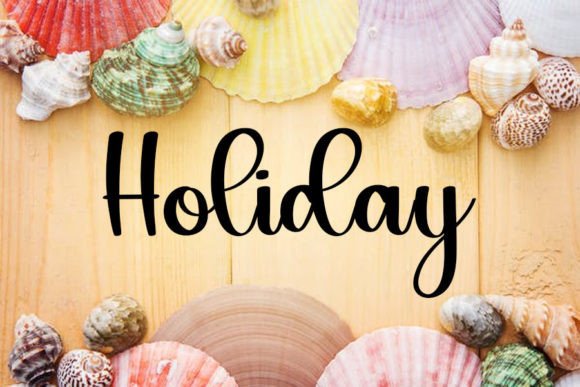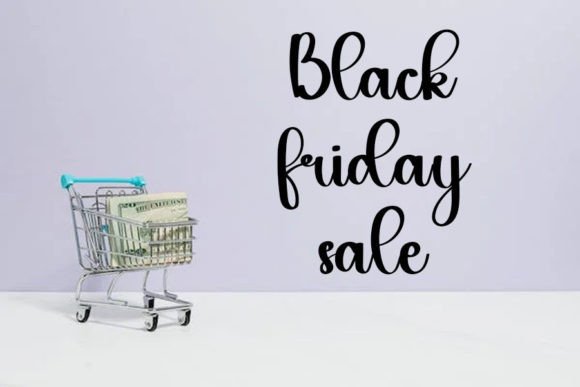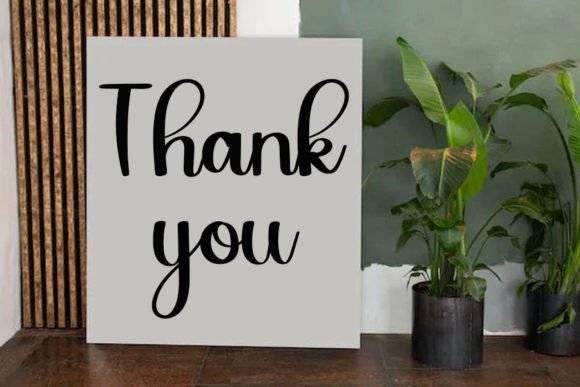
Introducing Everyone Font: The Magical Handwritten Font for Creative Projects
Are you tired of using the same old fonts for your logos, branding, and social media posts? Do you want to add a touch of elegance and quirkiness to your designs? Look no further than Everyone Font, a beautifully crafted handwritten font that’s perfect for creatives and DIY enthusiasts.
What is Everyone Font?
Everyone Font is a carefully curated handwritten font that’s designed to bring a touch of magic to your projects. With its clean lines and elegant feel, this font is ideal for a wide range of applications, from logos and branding to social media posts and crafty DIY projects.
Whether you’re a designer, crafter, or simply someone who loves to get creative, Everyone Font is the perfect choice for anyone looking to add a personal touch to their work. The font’s unique blend of sophistication and playfulness makes it versatile enough to be used in a variety of contexts, from formal to informal.
Key Features of Everyone Font
- Handwritten with love: Everyone Font is carefully crafted by hand, giving it a personal and unique feel that’s hard to replicate with generic fonts.
- Elegant and clean: The font’s clean lines and elegant feel make it perfect for projects that require a touch of sophistication.
- Quirky and playful: Despite its elegance, Everyone Font has a playful side that’s perfect for adding a bit of whimsy to your designs.
- Versatile: This font is suitable for a wide range of projects, from logos and branding to social media posts and crafty DIY projects.
How to Use Everyone Font
Using Everyone Font is easy! Whether you’re a seasoned designer or a DIY novice, you can easily incorporate this beautiful font into your projects. Here are a few ideas to get you started:
- Logos and branding: Use Everyone Font to create a unique and memorable logo for your business or brand.
- Social media posts: Add a touch of personality to your social media posts with Everyone Font.
- Crafty DIY projects: Use Everyone Font to add a personal touch to your crafty DIY projects, such as handmade cards, gift tags, and more.
- Graphic design: Incorporate Everyone Font into your graphic design projects, such as brochures, flyers, and posters.
Benefits of Using Everyone Font
So why choose Everyone Font over other fonts? Here are just a few benefits of using this amazing font:
- Stand out from the crowd: With Everyone Font, you can create unique and eye-catching designs that will help you stand out from the crowd.
- Personal touch: This font adds a personal touch to your designs, making them feel more approachable and relatable.
- Time-saving: With Everyone Font, you can create professional-looking designs in no time, saving you time and effort.
- Easy to use: This font is easy to use, even for those with limited design experience.
In conclusion, Everyone Font is a magical handwritten font that’s perfect for creatives and DIY enthusiasts. With its elegant and quirky feel, this font is versatile enough to be used in a wide range of projects, from logos and branding to social media posts and crafty DIY projects. Whether you’re a designer, crafter, or simply someone who loves to get creative, Everyone Font is the perfect choice for anyone looking to add a personal touch to their work.